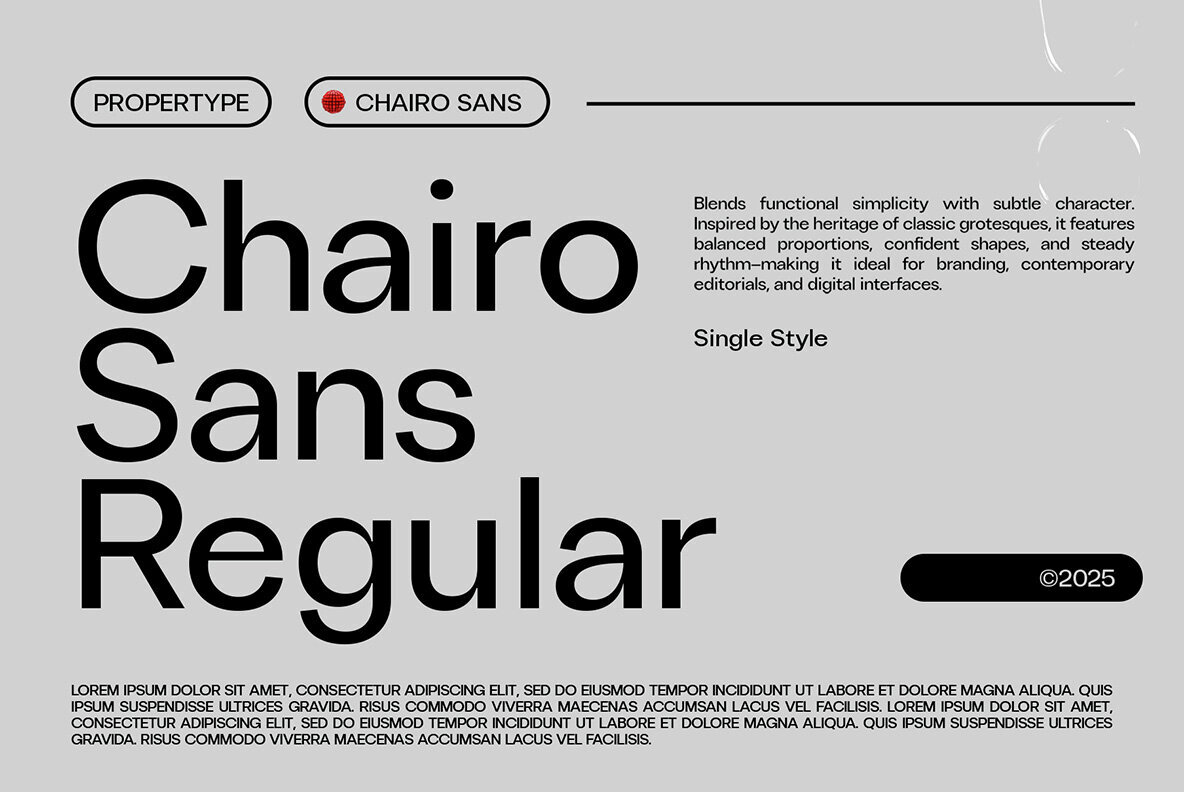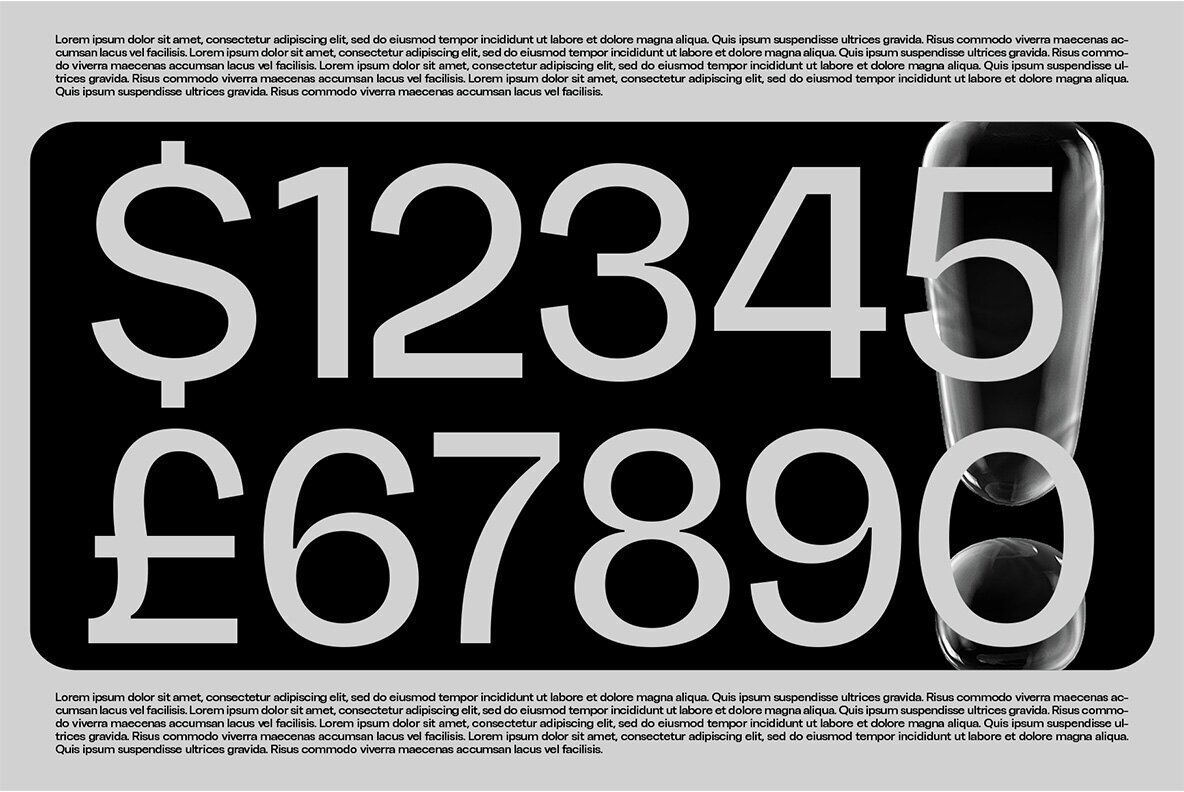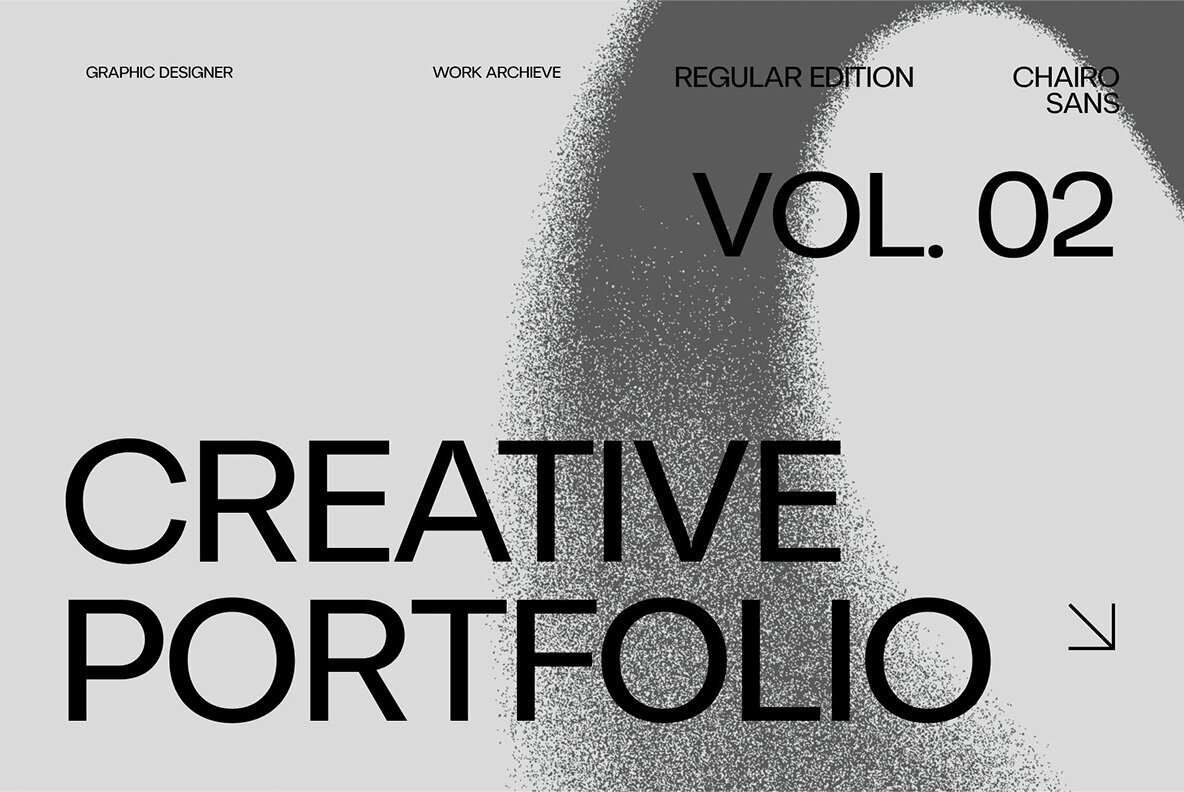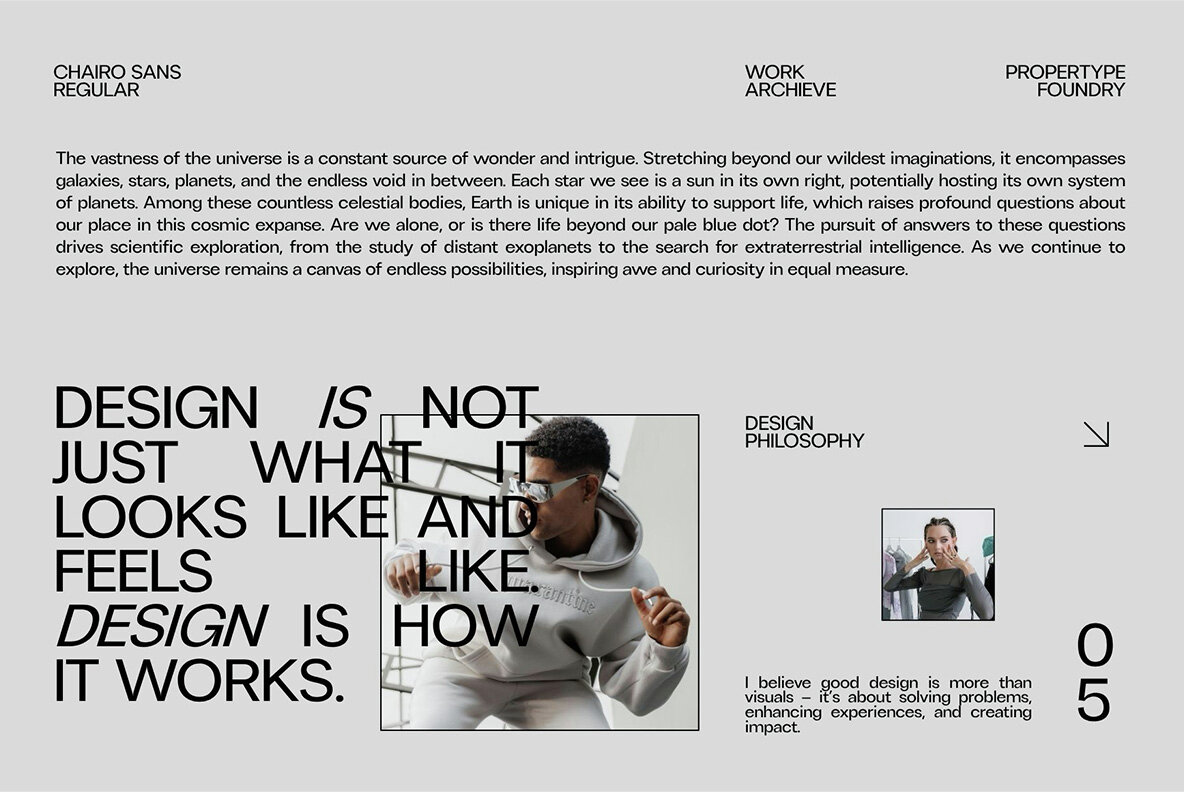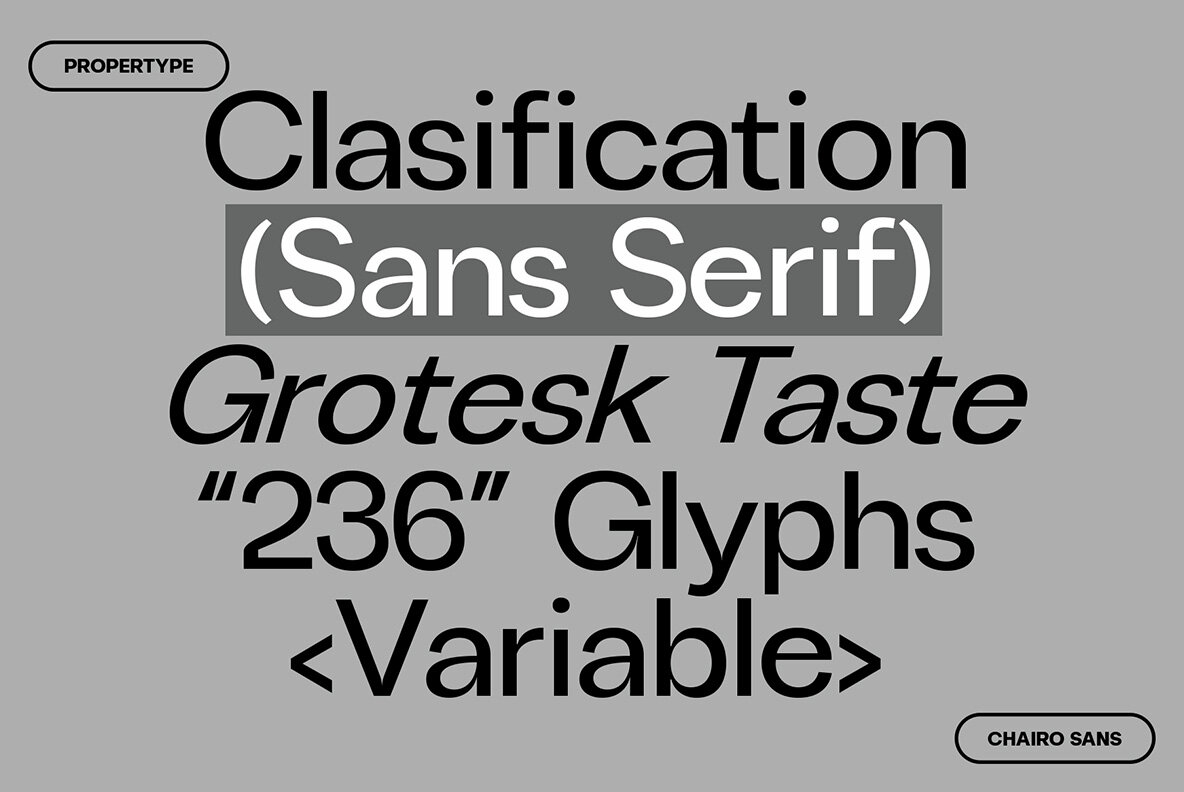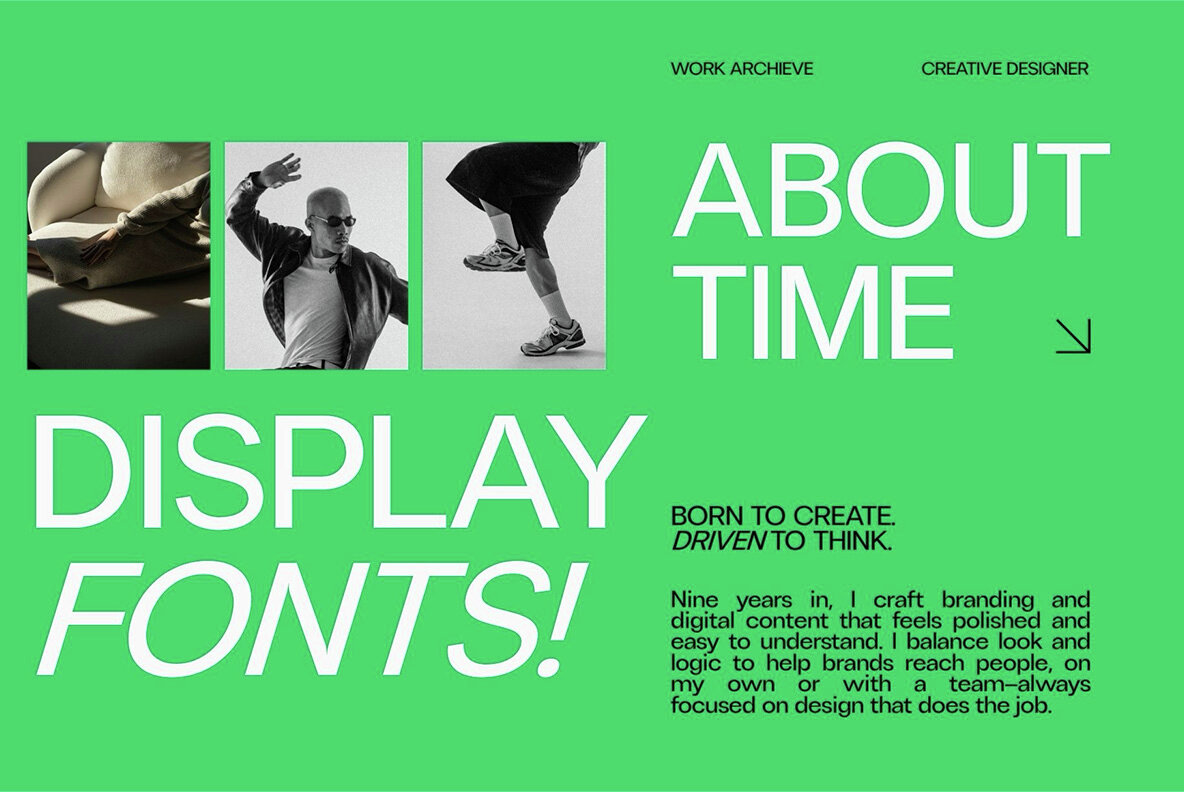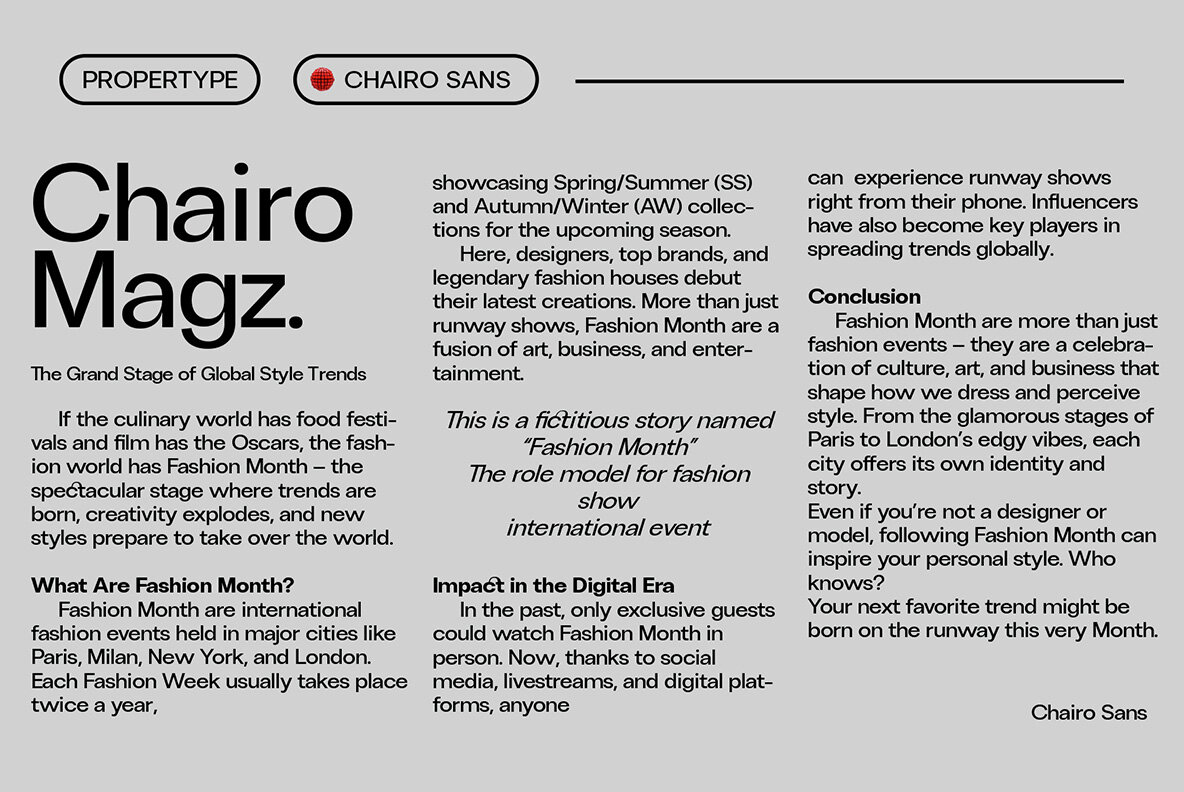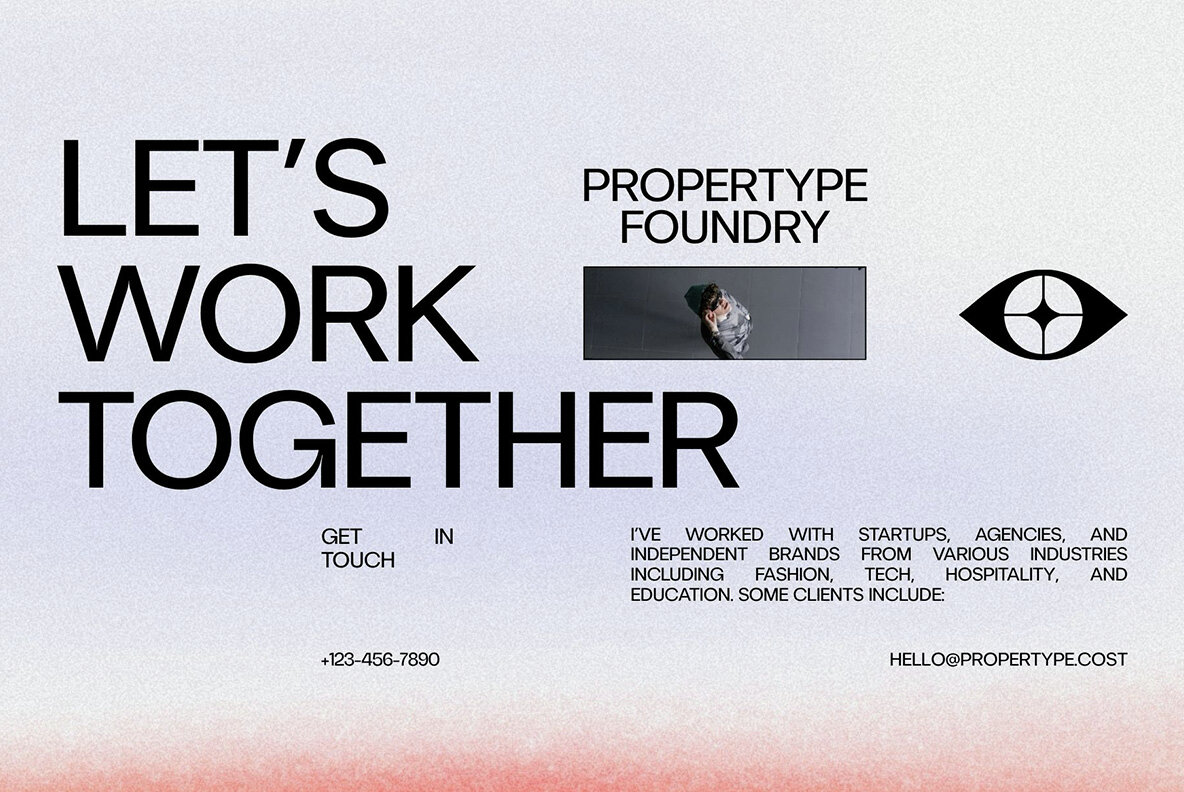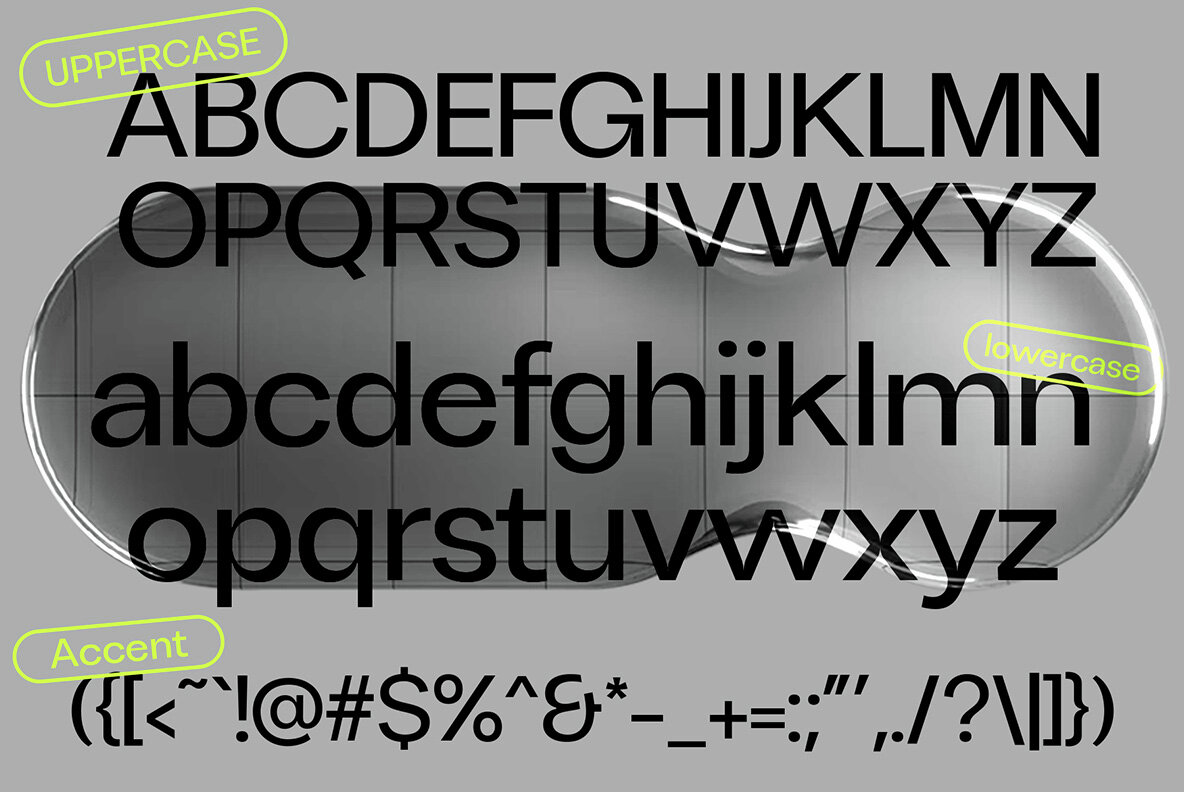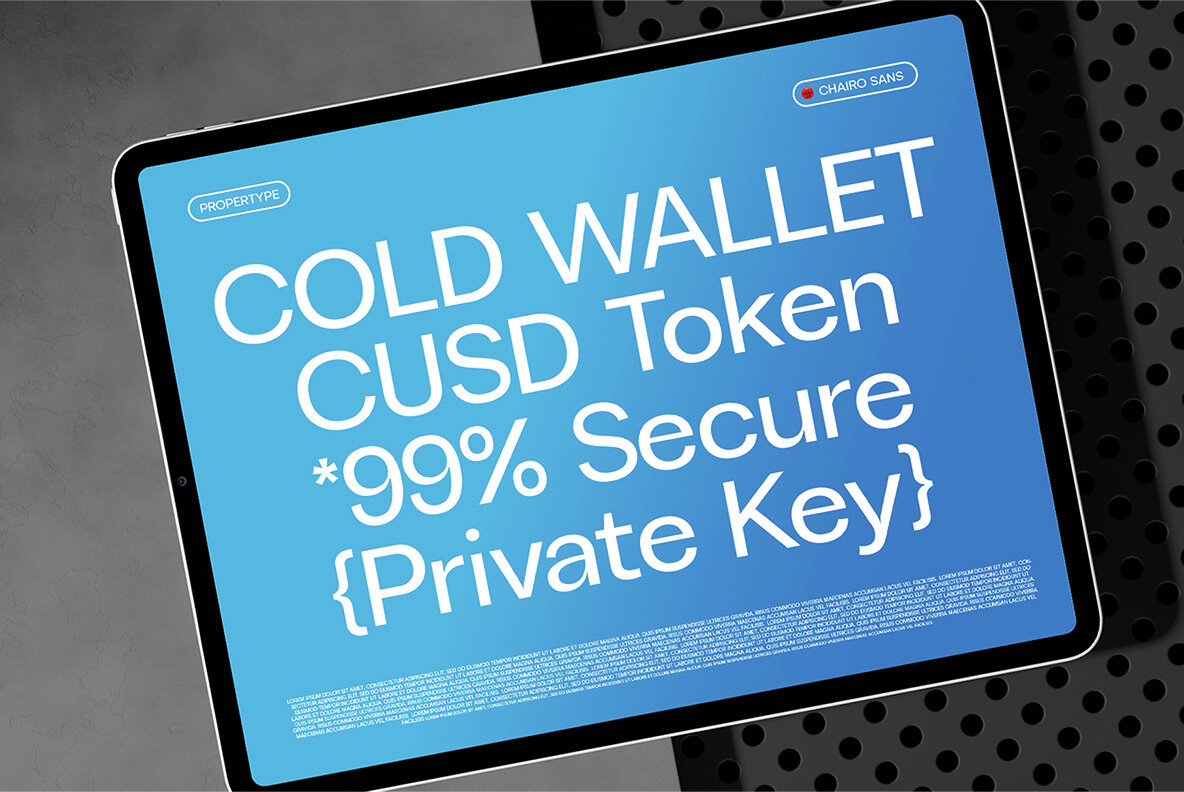
Chairo Sans Font
ChairoSans Confident brings a sophisticated balance of elegance and clarity to contemporary design projects. With both upright and oblique styles available in seven weights, this serif font family offers flexibility for a range of applications. Its high contrast and clean lines deliver visual impact without compromising readability—a quality that makes it suitable for branding, editorial design, and creative direction. This versatile serif typeface supports use in logos, advertising campaigns, packaging, and editorial layouts, including book and magazine covers. Whether employed in headlines, titles, or descriptive copy, ChairoSans Confident lends a sharp, modern voice to your visual narrative.ChairoSans Confident: Contrasting Serif Font Family With Modern Appeal